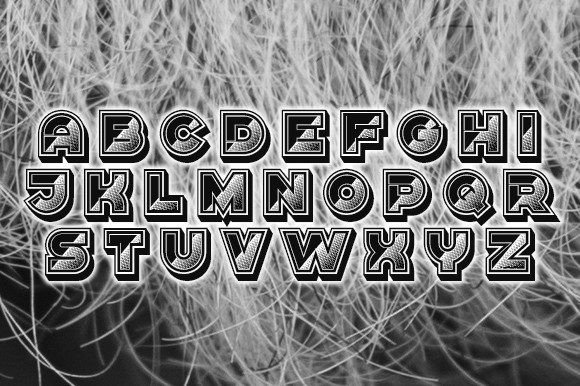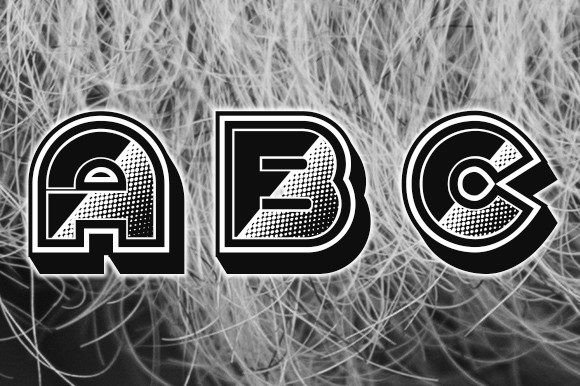
Unleash Your Creativity with Beard Font: The Ultimate Display Font for Bold Designs
Are you tired of using the same old fonts for your designs? Do you want to add a touch of masculinity and charm to your headlines, logos, and branding? Look no further than Beard Font, a striking display font that exudes boldness and character. With its rugged edges and expressive curves, Beard Font captures the essence of individuality, making it perfect for designers and crafters who want to create unique and eye-catching designs.
The Unique Characteristics of Beard Font
Beard Font is not just another font – it’s an experience. Its rugged edges and expressive curves give it a distinctive look that’s both bold and charming. The font’s unique characteristics make it perfect for a variety of design applications, from headlines and logos to branding and advertising. Whether you’re designing a poster, a business card, or a website, Beard Font is sure to make your design stand out from the crowd.
The Benefits of Using Beard Font
So why choose Beard Font over other fonts? Here are just a few benefits of using this amazing display font:
- Adds a touch of masculinity and charm: Beard Font is perfect for designers who want to add a touch of masculinity and charm to their designs. Its rugged edges and expressive curves give it a distinctive look that’s both bold and charming.
- Perfect for headlines and logos: Beard Font is designed specifically for headlines and logos, making it perfect for designers who want to create eye-catching and memorable designs.
- Captures the essence of individuality: Beard Font is all about individuality. Its unique characteristics make it perfect for designers who want to create designs that stand out from the crowd.
How to Use Beard Font in Your Designs
Using Beard Font in your designs is easy. Here are a few tips to get you started:
- Choose the right size: Beard Font is designed to be used at larger sizes, making it perfect for headlines and logos. Experiment with different sizes to find the one that works best for your design.
- Experiment with different colors: Beard Font looks great in a variety of colors. Experiment with different colors to find the one that works best for your design.
- Pair it with other fonts: Beard Font can be paired with other fonts to create a unique and eye-catching design. Experiment with different font combinations to find the one that works best for your design.
Who Can Benefit from Using Beard Font?
Beard Font is perfect for a variety of designers and crafters, including:
- Graphic designers: Beard Font is perfect for graphic designers who want to create eye-catching and memorable designs.
- Log designers: Beard Font is designed specifically for logos, making it perfect for log designers who want to create unique and memorable logos.
- Branding experts: Beard Font is perfect for branding experts who want to create unique and eye-catching branding materials.
- Crafters: Beard Font is perfect for crafters who want to add a touch of masculinity and charm to their crafts.